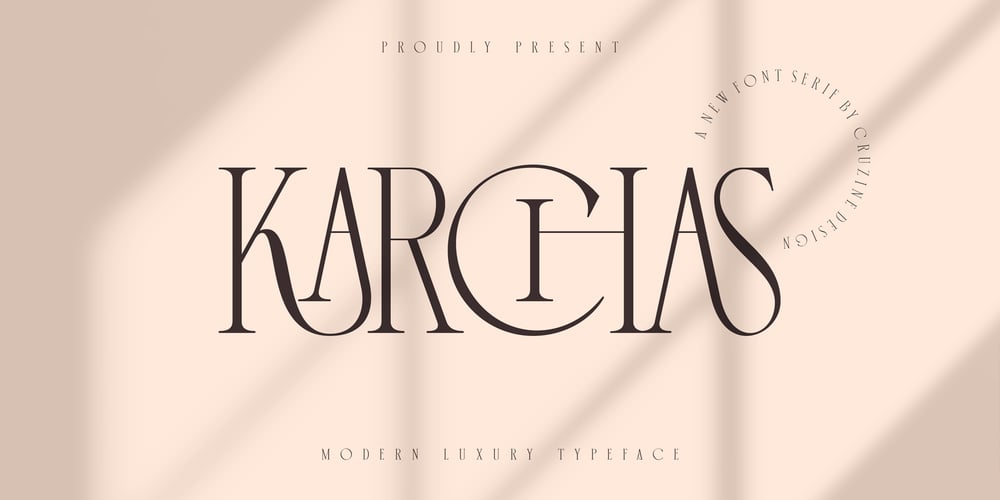
Karchas Font Family was designed by Peter Olexa and published by Deeezy. Karchas contains 1 styles and family package options. Trendy, classy & modern style serif font for your fancy projects. Elegant, fashion and classic style on Karchas font will be great for any branding project. Lot of alternates and ligatures will help you to create unique and original logo design or website header! Enjoy :)-Multilingual support-Lot of alternate characters-Lot of ligatures-Great for modern branding projects!